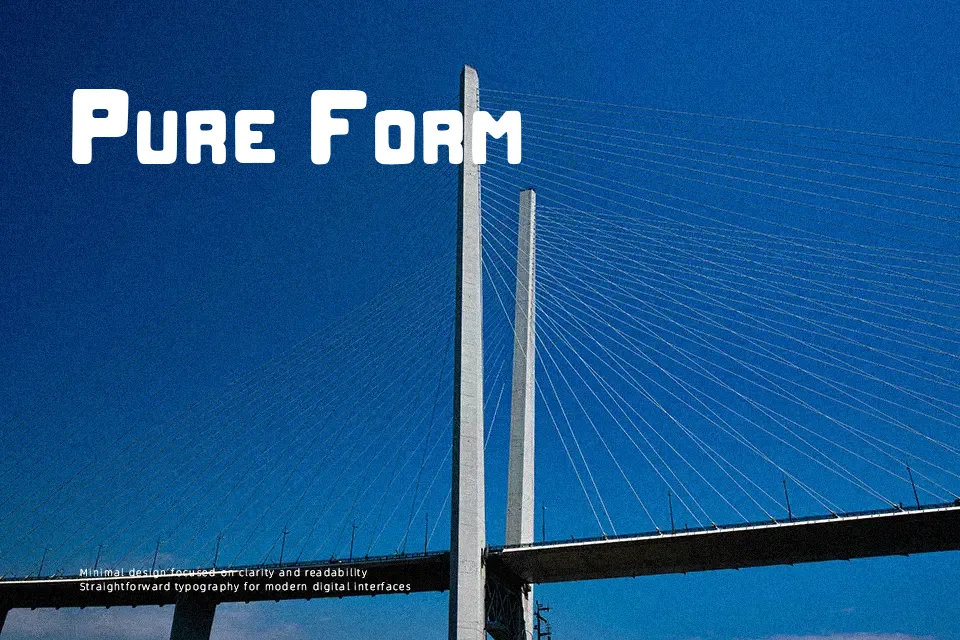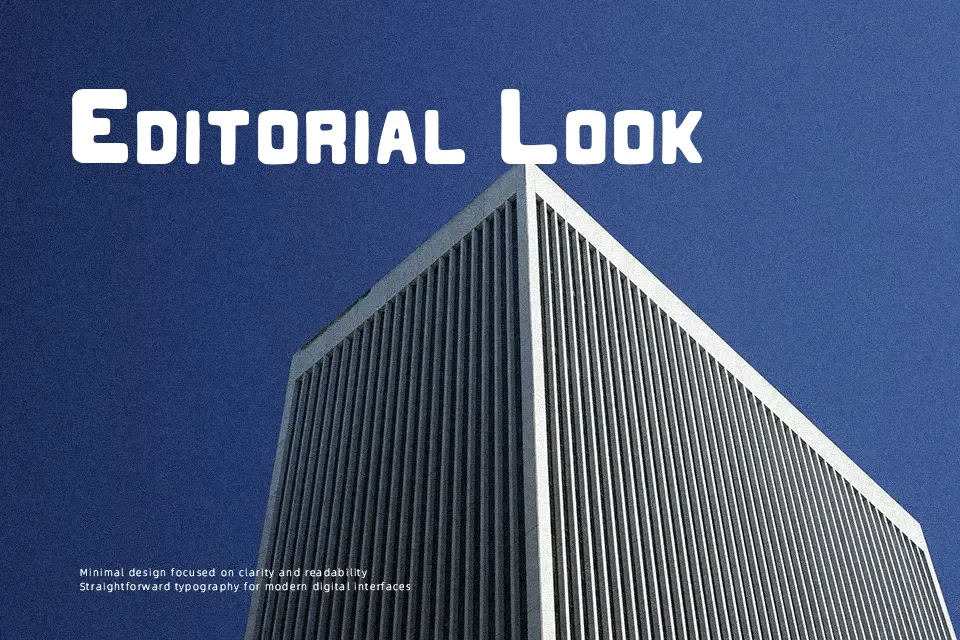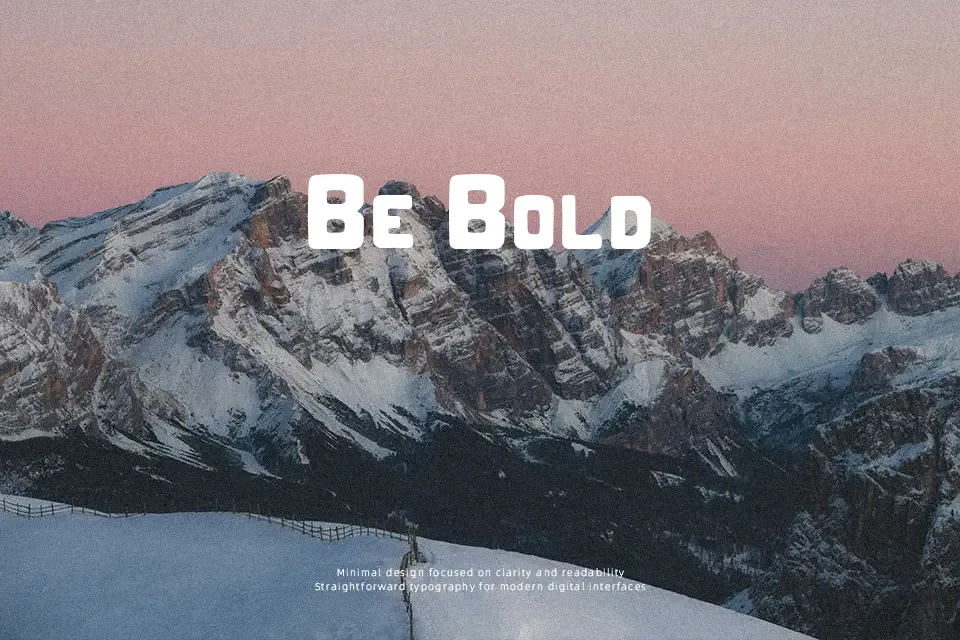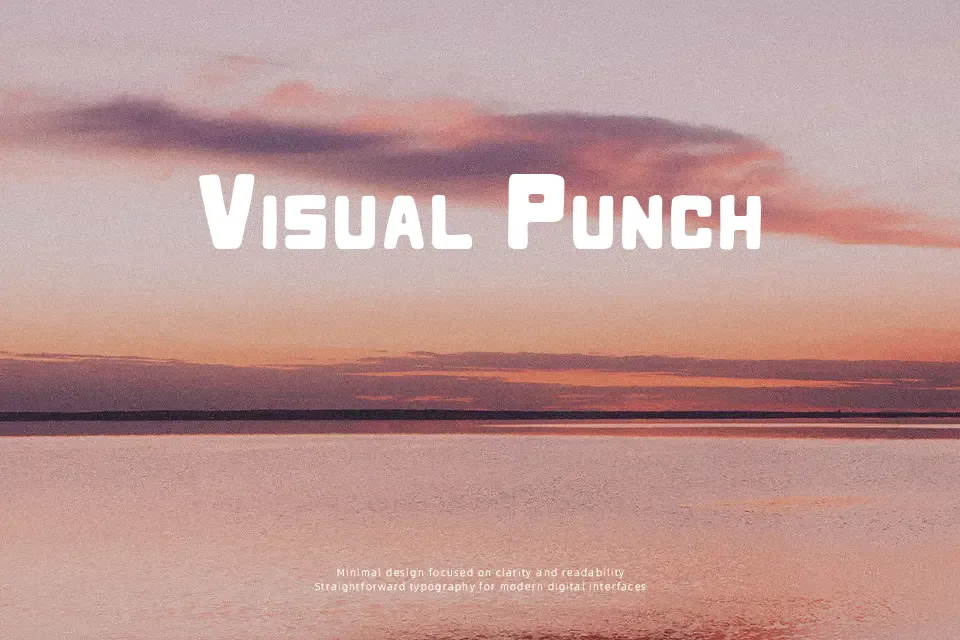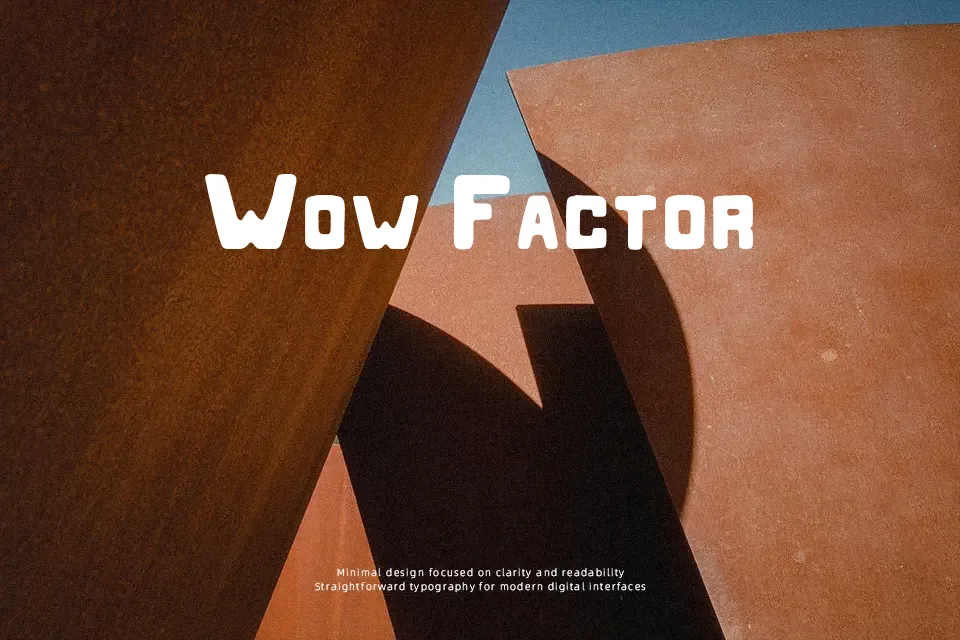
Blobb Font
Publicly available information confirms Blobb as a Fancy display font rather than a text-oriented family, but it does not provide enough reliable detail to verify exact stroke contrast, spacing, or full character support. Its category placement points to a decorative, attention-first structure, so I would treat it as a statement face for a few words at a time, not a font meant to disappear into the background. That makes it more convincing on student event posters, cover images, or oversized social titles where personality matters more than steady paragraph rhythm. I would skip it for body copy, UI labels, or paid client branding until you have tested legibility and confirmed the license fits the job.
Best For: short headlines; student posters; social graphic titles
Not Ideal For: body text; UI labels; commercial branding without license check
Perfect for headline, kids, and logo, with a bold and decorative style.